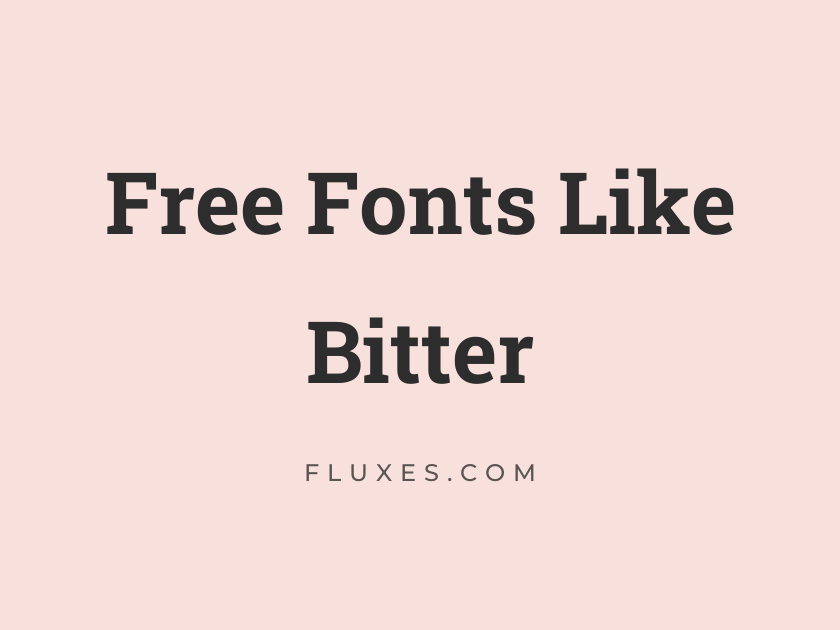
15 Best Free Fonts Similar to Bitter
Bitter earned its place in countless style guides because it does something a lot of serifs cannot: it holds up in dense paragraphs of body copy while still having enough personality to carry a headline. That slab serif structure, sturdy strokes, low contrast, generous x-height, made it a favorite for editorial sites, blogs, and documentation. If you are building a design system and want that same workhorse quality with a slightly different voice, there is a strong bench of free slab serifs and text serifs on Google Fonts that share Bitter’s DNA: readable at small sizes, confident on a page, and built for real content rather than just display use.
Reliable text for articles, reports, and essays
Roboto Slab is the most obvious first stop for anyone comparing free slab serif fonts to Bitter, since both were built with screen legibility as a priority. Its geometric skeleton feels slightly more mechanical and less humanist than Bitter, which makes it read as a touch more modern and neutral in long-form layouts.
Designed for interfaces, comfortable for reading
Born out of Mozilla’s Fira project before going independent, Zilla Slab carries a similar workhorse spirit to Bitter but with warmer, more calligraphic serif details. It handles body text gracefully and still has enough character in its italics and bold weights to anchor a headline without feeling generic.
Bold statements set in sturdy slab letters
Arvo trades Bitter’s subtlety for geometric confidence; its serifs are blocky and unapologetic, closer to Rockwell than to a text-first slab. It is a good pick when you want the slab silhouette to be an obvious design statement rather than something readers barely notice.
Rokkitt
Friendly slabs for blogs and tutorials
Rokkitt
Rokkitt softens the slab serif formula with rounder curves and a slightly playful rhythm, so it feels less austere than Bitter in body copy. It suits casual blogs, tutorials, and personal sites where a hint of warmth matters more than strict editorial gravity.
Aleo
Smooth reading for magazines and portfolios
Aleo
Aleo was explicitly designed as a slab serif companion to sans-serif fonts, and it shares Bitter’s calm, even texture across paragraphs. The letterforms feel a little more rounded and contemporary, making it a natural fit for magazine-style layouts and creative portfolios.
Crete Round
Gentle slab serif for calm, readable pages
Crete Round
This one leans softer and more rounded than Bitter, with serifs that curve rather than snap into sharp corners. It is a quieter alternative for sites that want the slab feel without the heaviness, though it can look a bit plain at very large display sizes.
Podkova
Slab serif charm with a distinct regional flavor
Podkova
Podkova brings a slightly condensed, angular character to the slab serif category, with roots in Bulgarian type design that give it a distinctive rhythm. It works well as a heading font paired with a simpler serif or sans for body copy, since its personality is a bit stronger than Bitter’s.
Built for screens, comfortable for long reading
Merriweather is not a slab serif, but it was designed with the same core goal as Bitter: excellent readability on screens across long passages of text. Its sturdy, slightly condensed letterforms and generous curves make it one of the most popular free Google Fonts alternatives for editorial and blog typography.
Elegant serif storytelling for articles and essays
Lora brings a more traditional, calligraphic warmth than Bitter’s mechanical slab structure, with brushed curves that feel at home in narrative writing. It pairs beautifully with a slab or grotesque sans for headings if you want contrast rather than a matching family.
Clear, no-nonsense text for reports and documents
PT Serif is a dependable, transitional serif that shares Bitter’s businesslike clarity without the slab detailing. It is a solid choice for documentation, reports, and anywhere legibility needs to outrank personality.
Confident serif headlines for online publishing
Domine was designed specifically for setting headlines on the web, and it has the same sturdy confidence as Bitter but with more traditional serif bracketing. It reads a little more formal and bookish, which suits news sites and long-form journalism.
Warm, literary serif for thoughtful long reads
Vollkorn has a bookish, literary warmth that softens the businesslike tone of Bitter considerably. Choose it when the content is reflective or narrative rather than technical, since its slightly higher contrast rewards slower, quieter reading.
Refined serif text for editorial design systems
Adobe’s Source Serif 4 was built to complement Source Sans, and it carries that same disciplined, design-system mentality that made Bitter popular among developers. Its proportions are more refined and slightly higher contrast, giving it a more polished, less industrial feel in body text.
Dependable serif text across many languages
Noto Serif is the practical choice when a project needs broad language coverage alongside Bitter-like reliability in paragraph text. It is not the most characterful option here, but it is remarkably consistent and predictable across weights and scripts.
For a closer one-to-one swap for Bitter, Roboto Slab and Zilla Slab are the safest download choices since both were engineered for the same text-heavy use cases.
If you want contrast rather than a match, pair a slab headline with a humanist serif body font like Lora or Vollkorn.
Any of these free Google Fonts options can stand in for Bitter depending on how much warmth, weight, or personality your project needs. Download a few, drop them into a live layout, and let real paragraphs of your content decide which one earns a permanent place in your style guide.